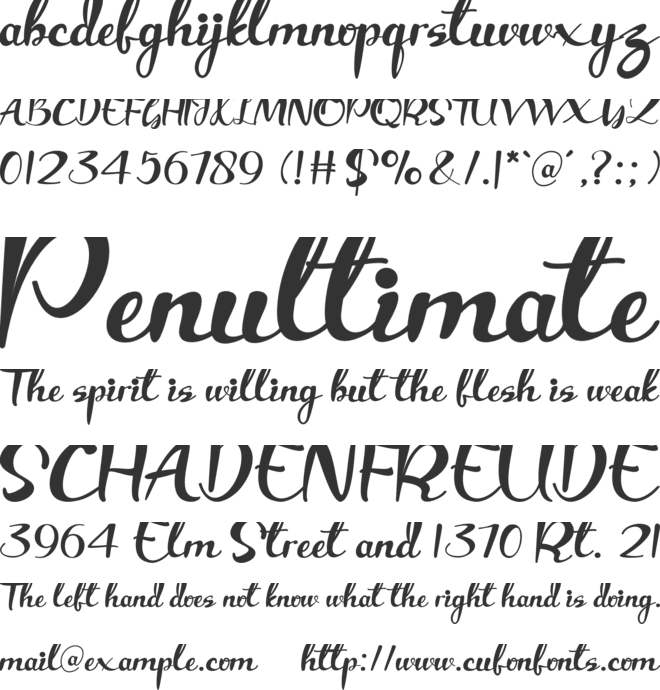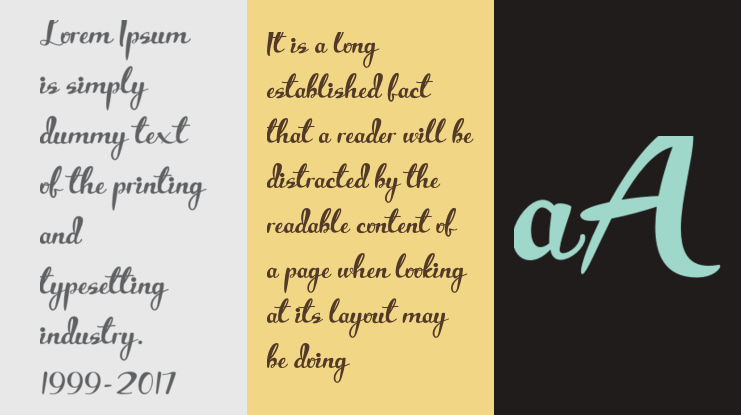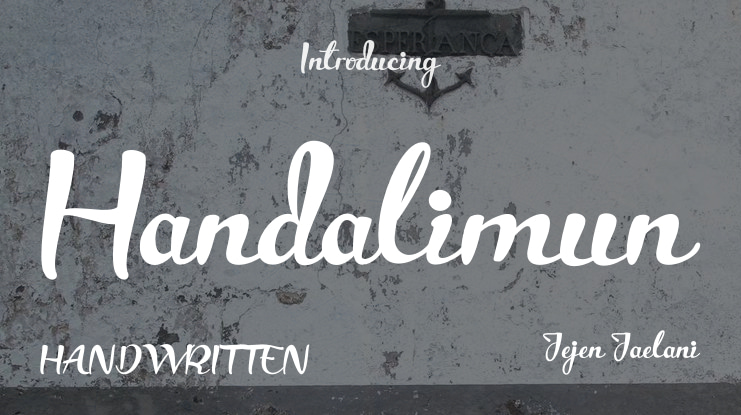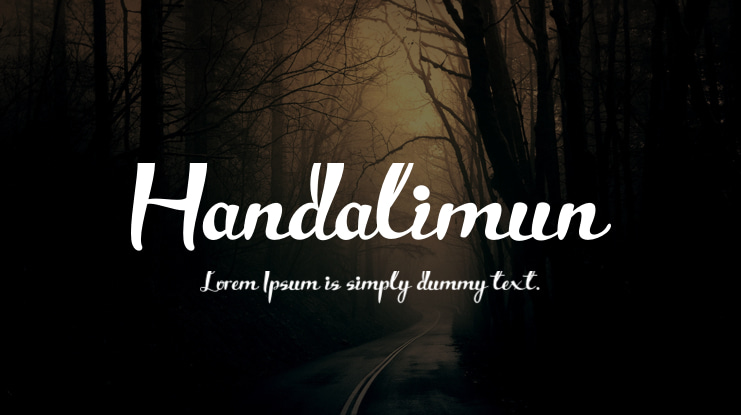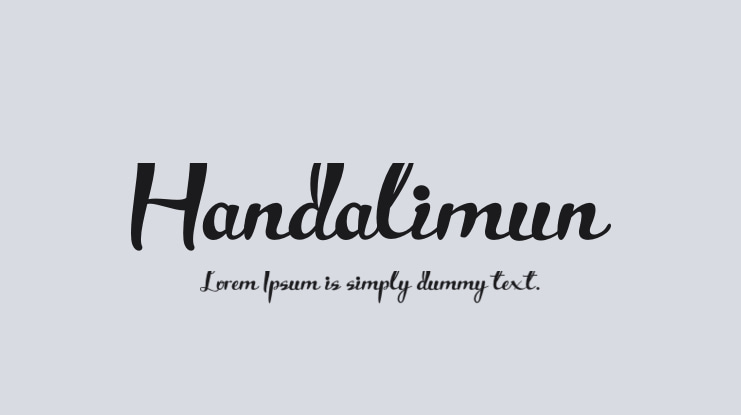
Introducing "Handalimun," a modern script font that embodies a sleek and flowing style, offering a sophisticated yet approachable feel. Each letter is crafted with smooth, elegant curves and graceful connections, making it the perfect choice for adding a personal touch to a wide range of projects. With its blend of contemporary aesthetics and calligraphic nuances, Handalimun is ideal for branding, invitations, logos, social media graphics, and more. The font’s versatile design strikes a balance between readability and artistic flair, ensuring it stands out while remaining easy to read. Handalimun adds warmth and style to any design, making it an ideal choice for those seeking to combine elegance with a modern twist.
**Key Features:**
- Modern and stylish script with smooth curves - Great readability with an elegant touch - Perfect for branding, invitations, social media, and more